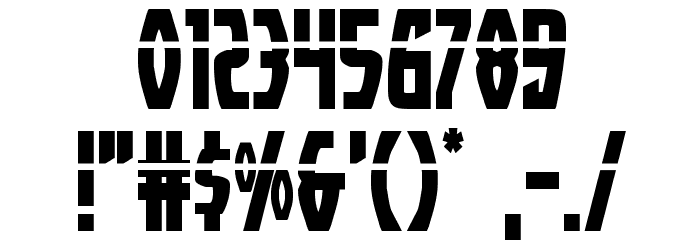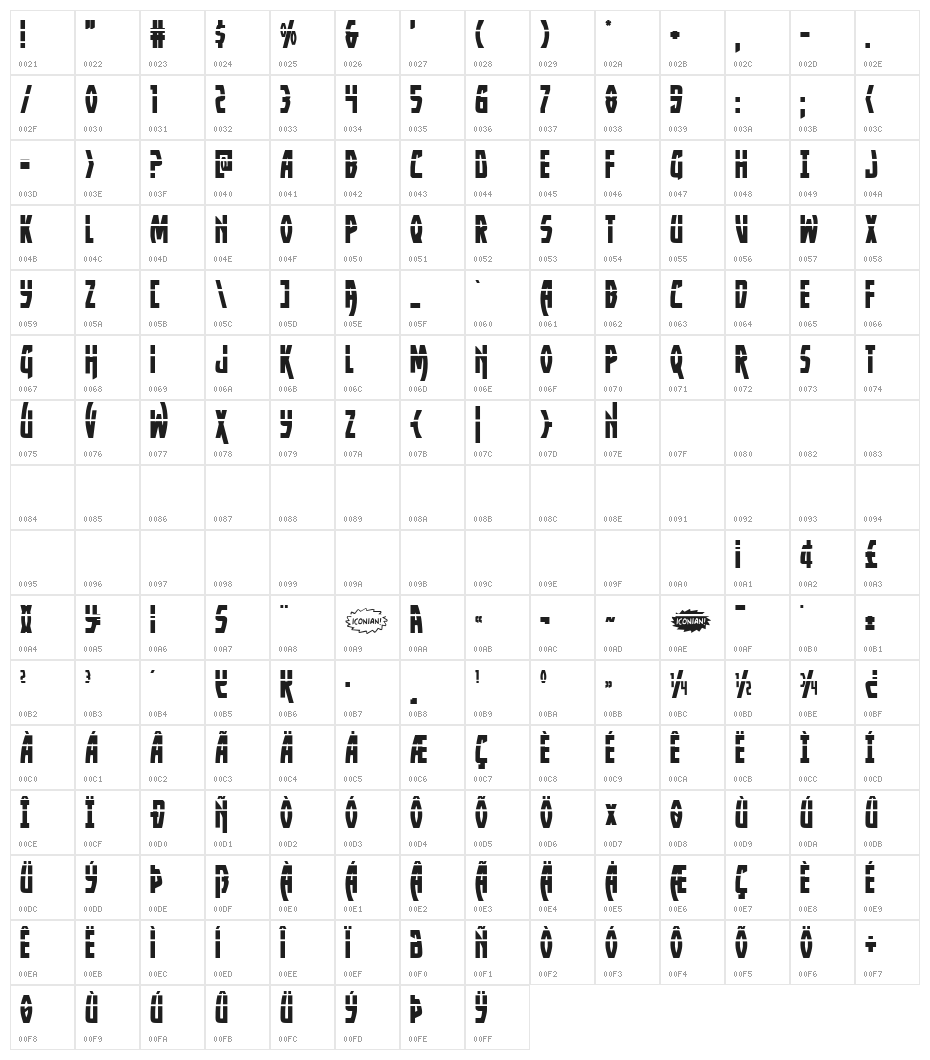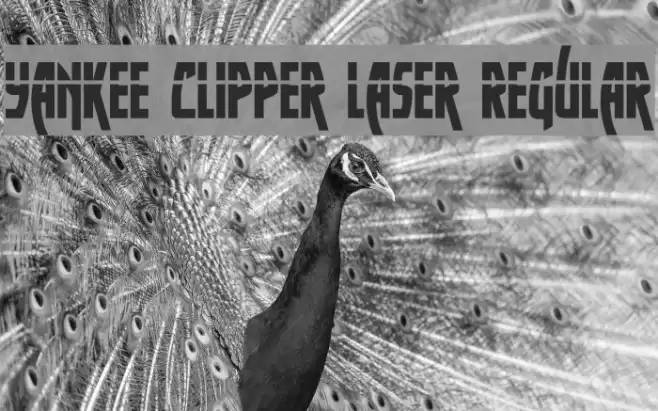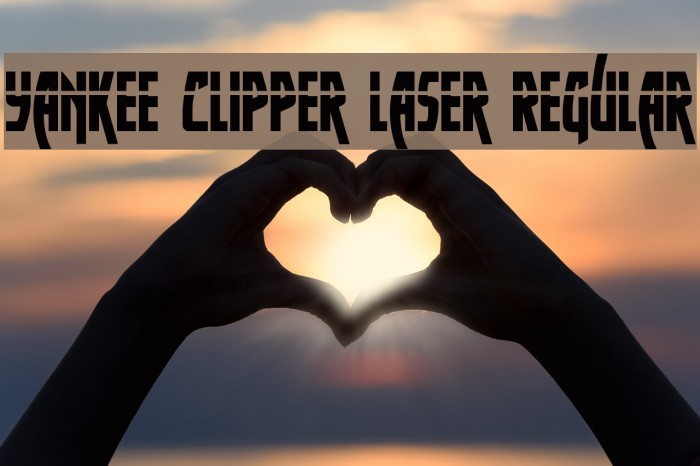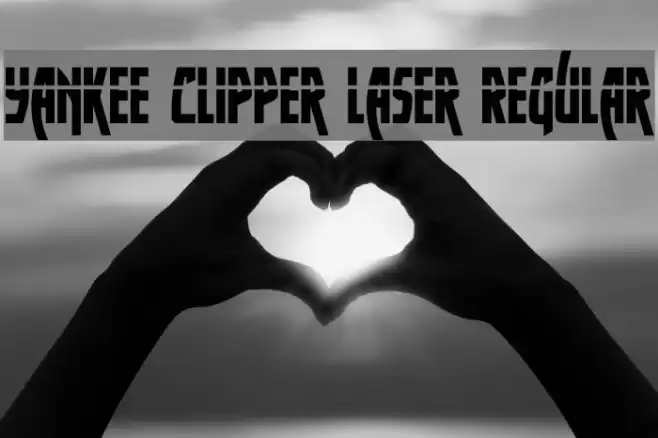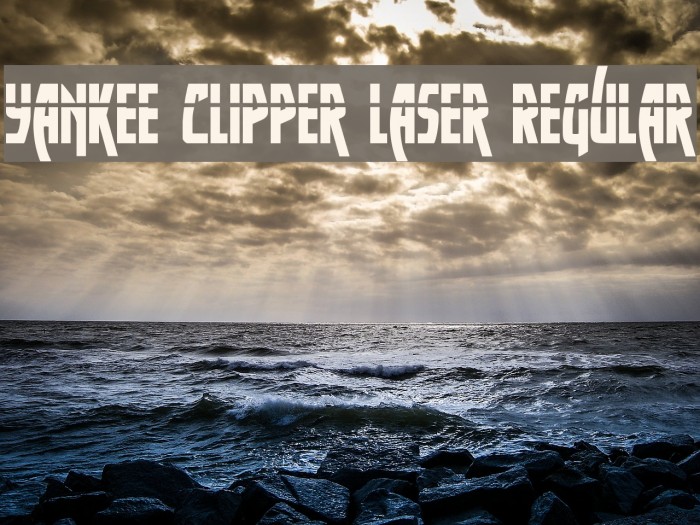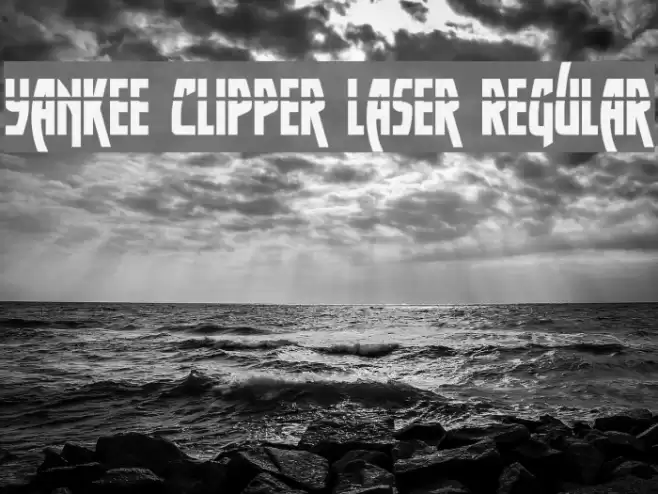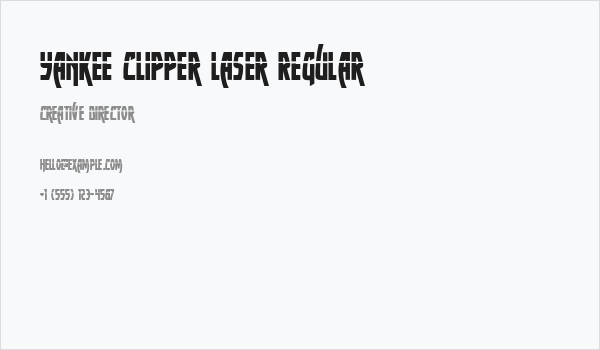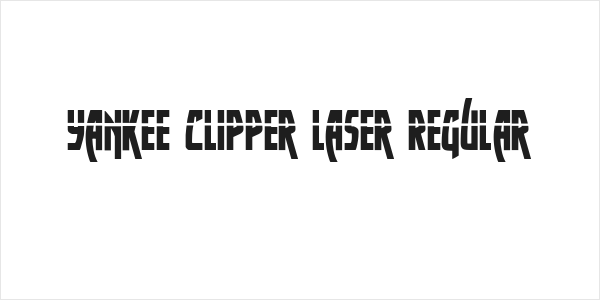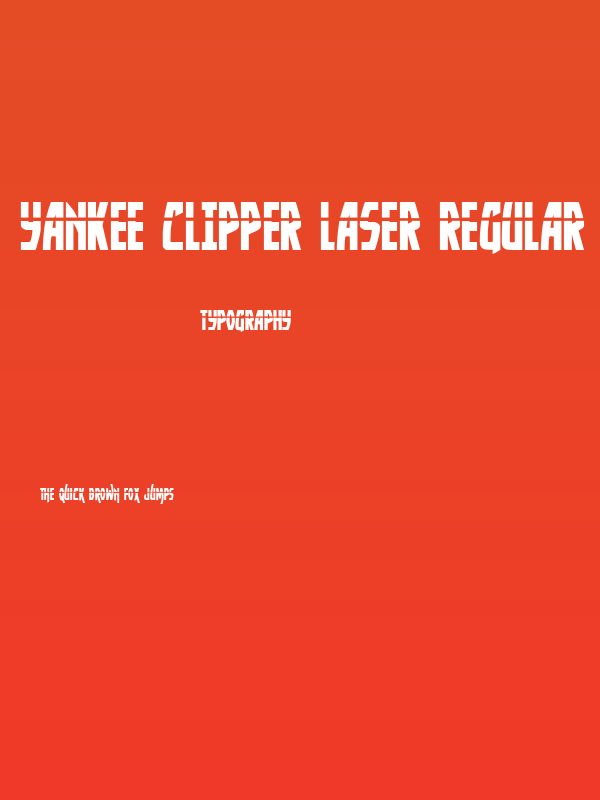
Yankee Clipper Laser Regular Font
Yankee Clipper Laser Regular Description
This font features a bold and dynamic design with a distinctive geometric style. The characters are constructed with sharp angles and a blocky appearance, creating a sense of movement and energy. The uppercase and lowercase letters maintain a consistent height, contributing to a uniform look across text. Numbers and special characters are designed to match the boldness and angularity of the alphabet, ensuring a cohesive visual experience. The font's unique aesthetic makes it stand out, suitable for projects that require a strong and impactful visual presence.